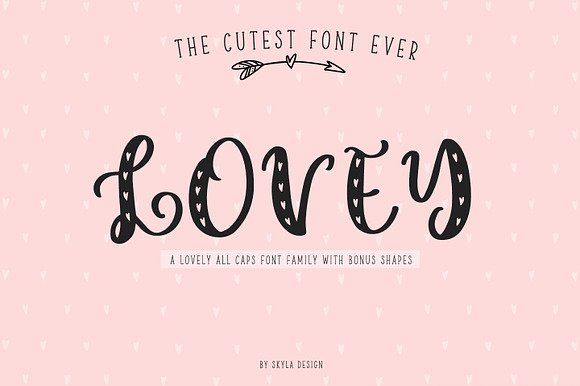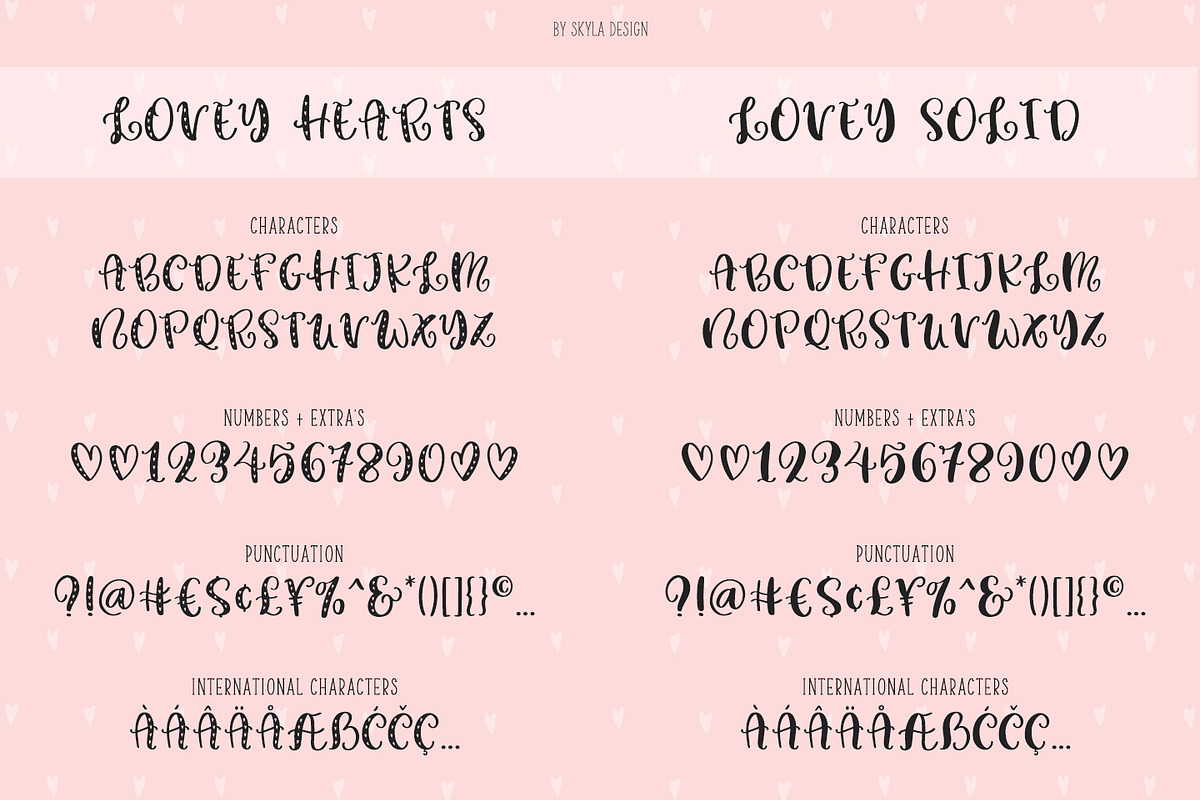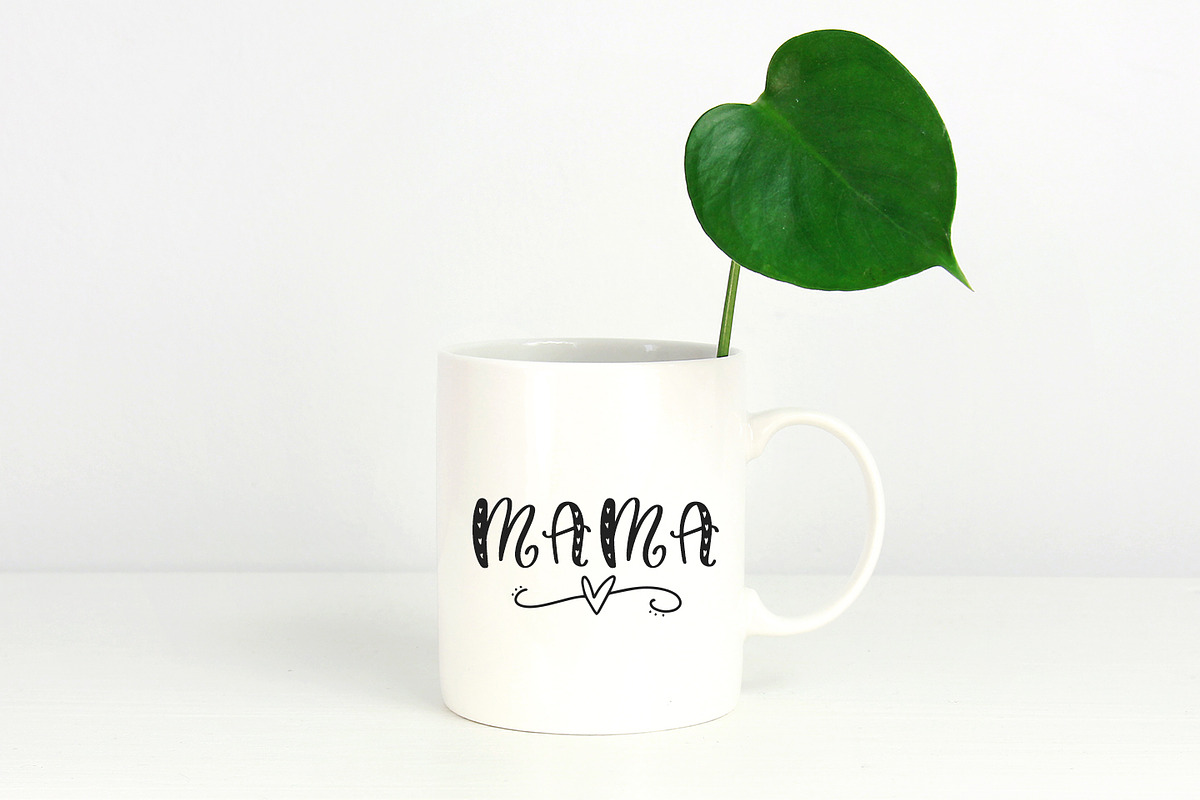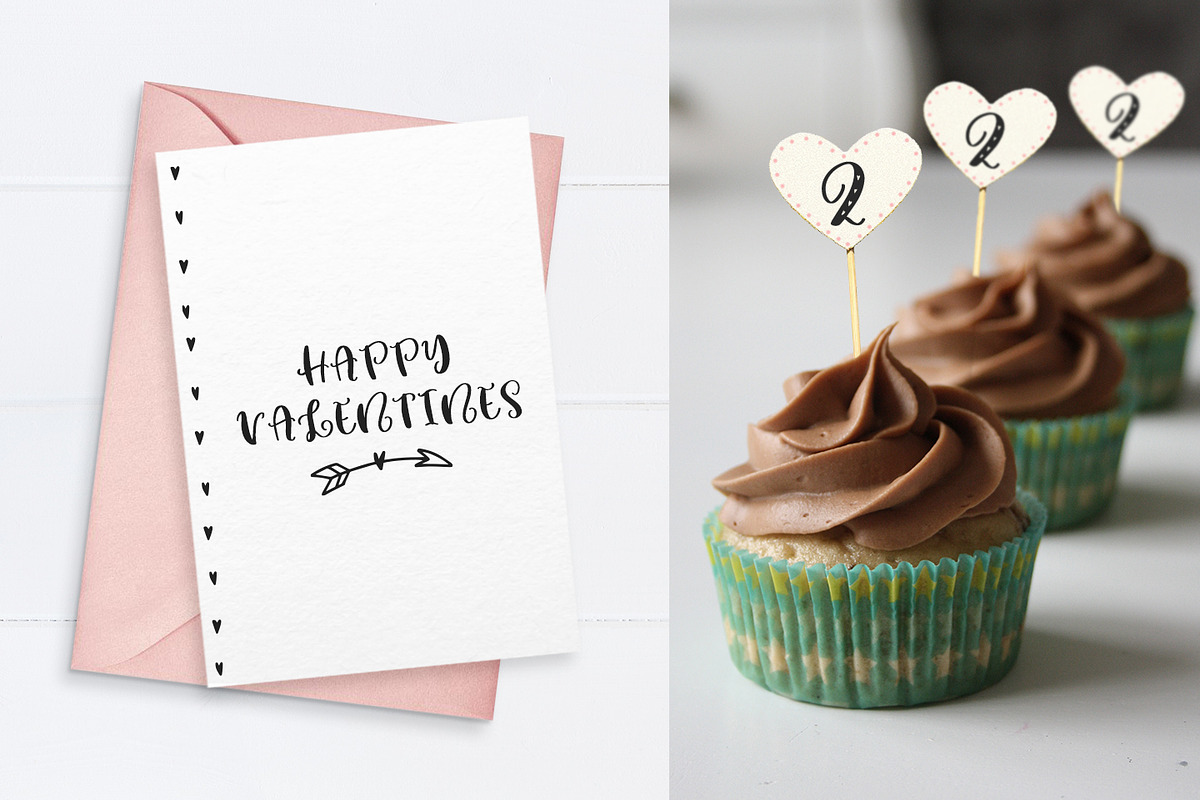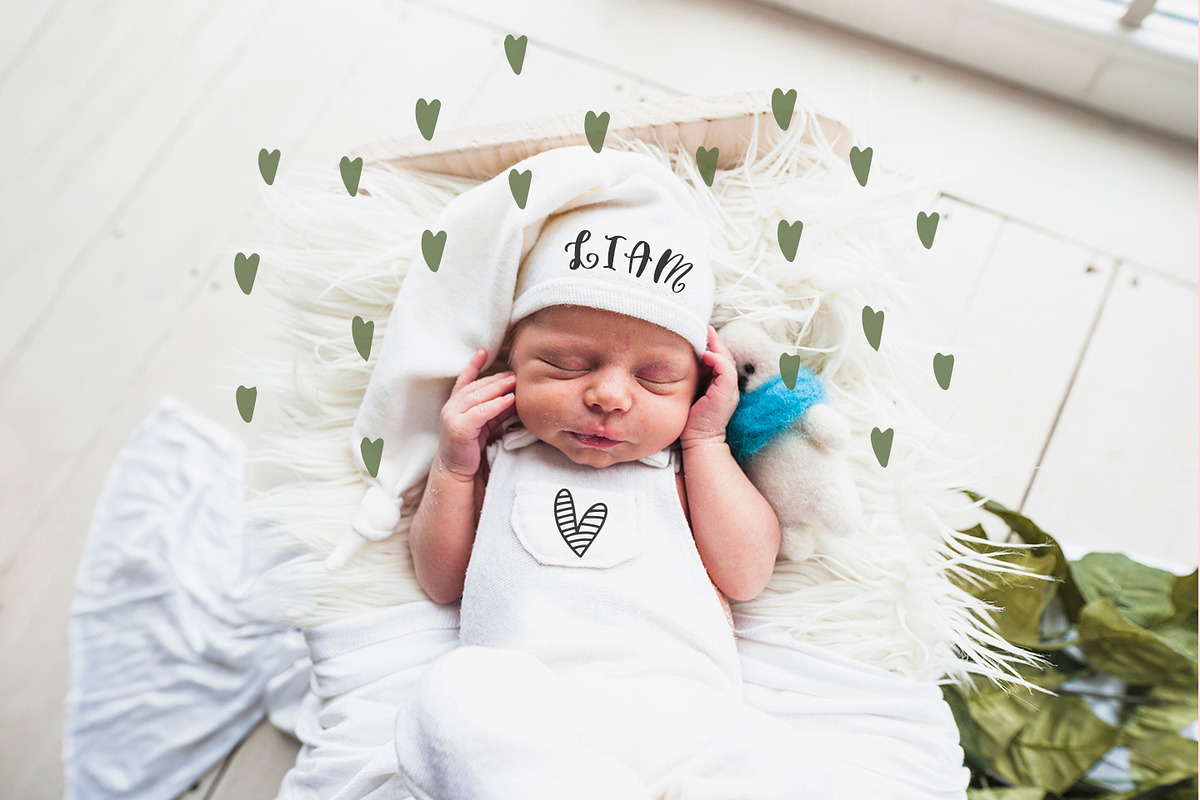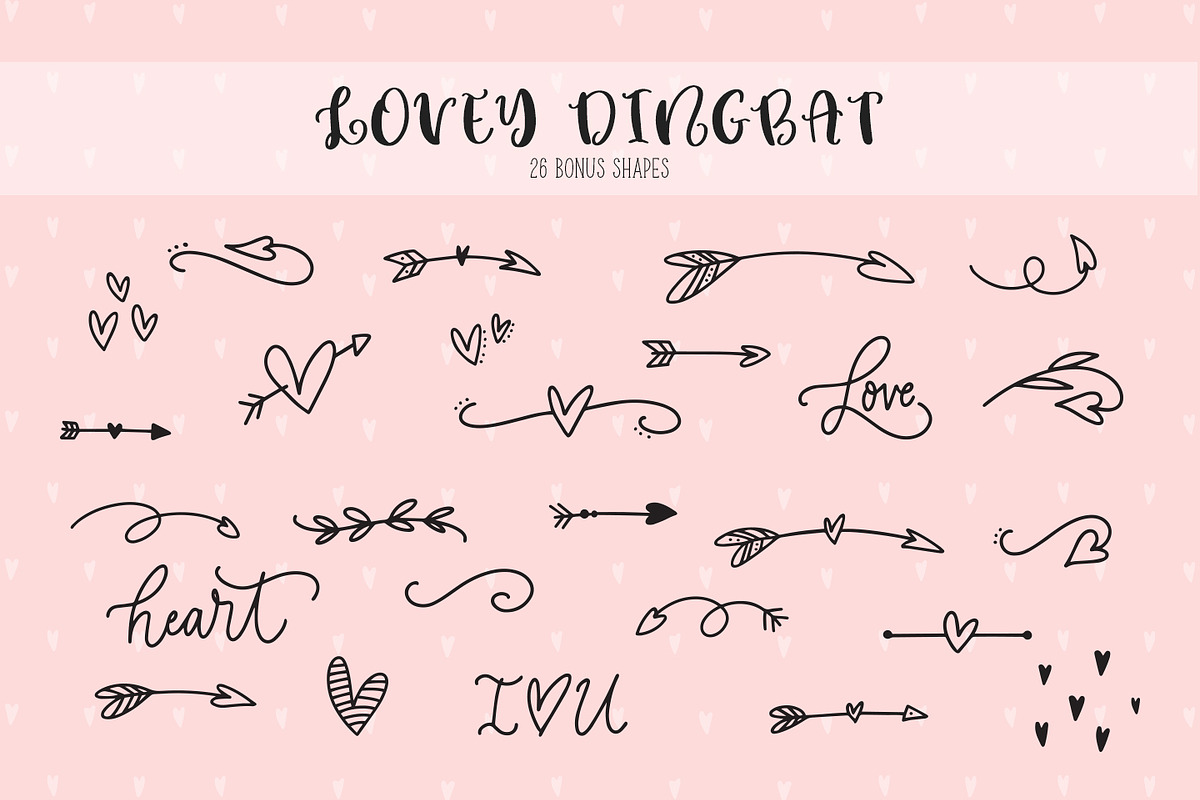
Cute heart font family Lovey
Lovey is the cutest font ever! You can use it for Valentine's day cards, cupcake toppers, nursery designs & newborn & kids clothing & wedding invites.
Lovey is a lovely all-caps font family that comes with heart details & a solid version. And to top it off it includes 26 bonus shapes of hearts, arrows, love doodles, which will make designing so much fun.
Lovey has nice smooth lines which is perfect for crafters and cutting machines.